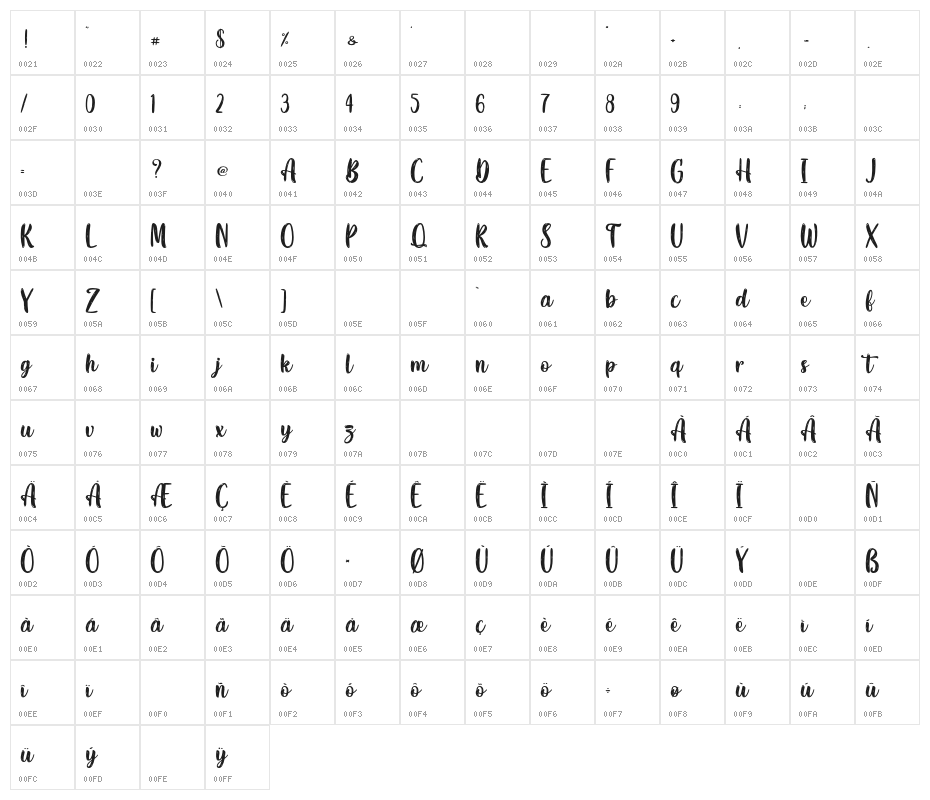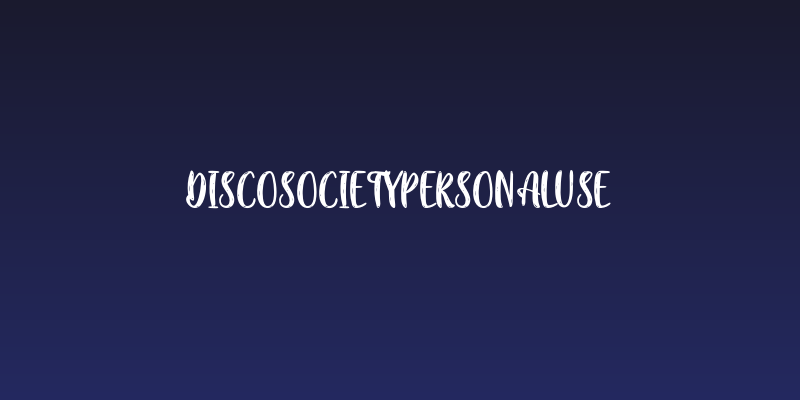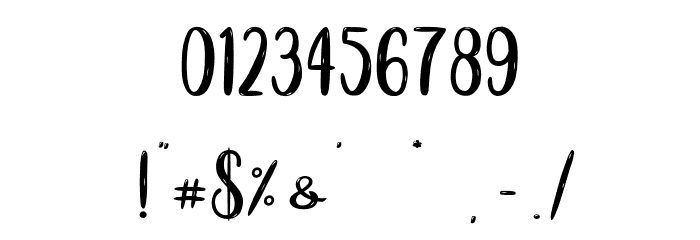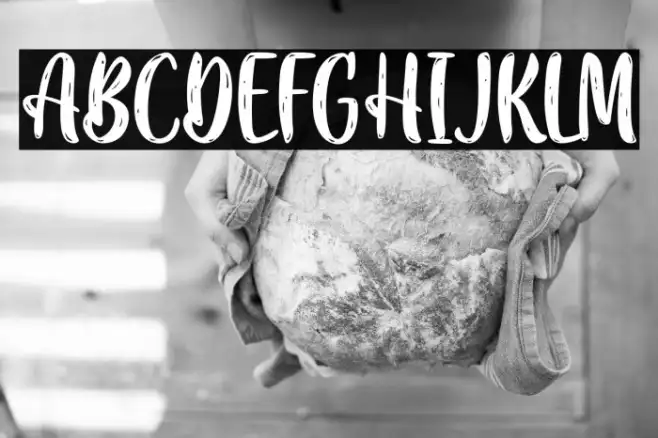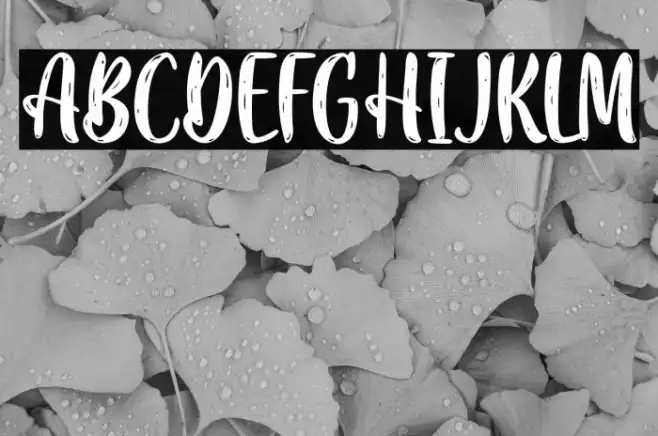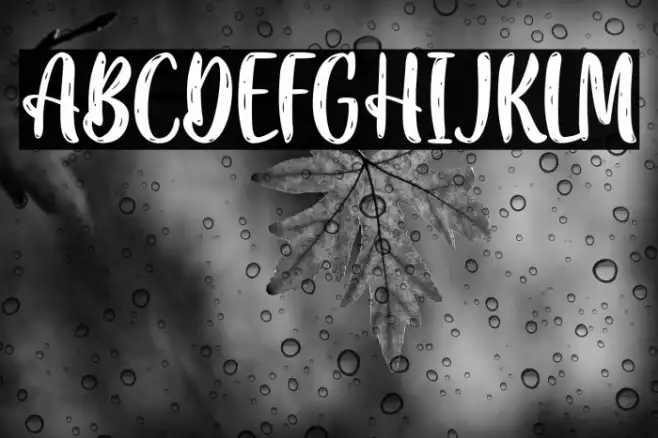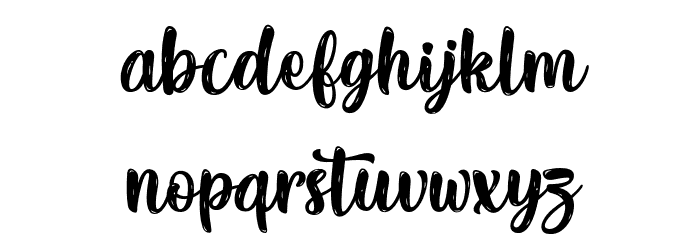
DiscoSocietyPersonalUse Font
DiscoSocietyPersonalUse Description
This font features a bold and playful handwritten style, characterized by its thick, rounded strokes and a lively, energetic appearance. The uppercase letters are slightly taller and more pronounced, while the lowercase letters maintain a consistent flow with a touch of whimsy. The numbers and special characters complement the overall design, adding to its versatility. The font's brush-like texture gives it a dynamic and informal feel, making it suitable for creative and expressive projects.
| Font Family | Disco Society - Personal Use |
| Proposed Projects | Ideal for greeting cards, posters, social media graphics, and branding projects that require a fun and lively touch. |